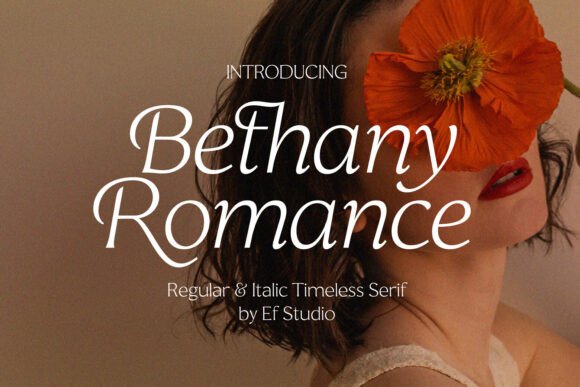
Bethany Romance Font: Elevate Your Design with Elegance and Sophistication
In the world of typography, few fonts manage to strike a balance between classic elegance and modern charm. Bethany Romance, a refined semi-serif font, is one such exceptional typeface that seamlessly blends traditional sophistication with contemporary allure. This beautifully crafted font is perfect for designers seeking to add a touch of luxury and refinement to their projects, whether it’s for branding, editorials, or elegant invitations.
Key Features of Bethany Romance Font
- Refined Semi-Serif Design: Bethany Romance boasts a semi-serif design that exudes classic sophistication. Its sleek lines and refined features make it an excellent choice for projects that demand elegance.
- High-Contrast Strokes: The regular style of Bethany Romance features high-contrast strokes, which add depth and dimension to the font. This characteristic makes it particularly suitable for editorial designs, luxury branding, and high-end publications.
- Italic Alternates with Swashes: The italic alternates of Bethany Romance introduce graceful swashes, elevating the font’s elegance to new heights. These swashes add a touch of luxury and fluidity, making the font perfect for creating visually stunning designs.
- Versatility: Bethany Romance is incredibly versatile, making it suitable for a wide range of applications, from branding and editorials to elegant invitations and packaging designs.
Ideal Applications for Bethany Romance
Bethany Romance’s unique blend of classic and modern elements makes it an excellent choice for various design projects. Here are some ideal applications for this beautiful font:
- Branding: Use Bethany Romance to create luxurious brand identities that convey sophistication and elegance. Its refined design ensures that your brand stands out with a touch of class.
- Editorials: The high-contrast strokes and elegant swashes of Bethany Romance make it perfect for editorial designs, such as magazines, newspapers, and online publications.
- Elegant Invitations: Add a touch of luxury to your invitations, whether it’s for weddings, galas, or other special events. Bethany Romance’s refined design and beautiful swashes will make your invitations truly unforgettable.
- Packaging Design: Elevate your packaging designs with Bethany Romance, creating a sophisticated and premium look that appeals to discerning customers.
Typography Tips for Using Bethany Romance
To make the most of Bethany Romance, consider the following typography tips:
- Pair with Complementary Fonts: Combine Bethany Romance with complementary fonts to create visual interest and hierarchy in your designs. Consider pairing it with sans-serif fonts for a modern contrast.
- Adjust Font Sizes: Experiment with different font sizes to create a clear visual hierarchy. Use larger sizes for headings and smaller sizes for body text to ensure readability.
- Utilize Swashes: Take advantage of the elegant swashes in the italic alternates to add a touch of luxury to your designs. Use them sparingly to avoid overwhelming the text.
- Play with Line Spacing: Adjust the line spacing to improve readability and create a clean, uncluttered look. Proper line spacing ensures that your text is easy to read and visually appealing.
Finding Inspiration with Bethany Romance
When working with Bethany Romance, draw inspiration from various design styles and trends. Here are some sources of inspiration to consider:
- Classic Typography: Look to classic typography for inspiration, exploring the works of renowned typographers and designers who have mastered the art of elegant typefaces.
- Luxury Brands: Examine the branding strategies of luxury brands, which often rely on sophisticated typography to convey exclusivity and high-end quality.
- Editorial Design: Browse editorial designs, such as fashion magazines and lifestyle publications, to see how elegant typography can elevate the overall aesthetic.
- Nature and Architecture: Find inspiration in the clean lines and organic shapes of nature and architecture. These elements can influence your typography choices and help you create harmonious designs.
Bethany Romance is a versatile and elegant font that brings a touch of sophistication to any design project. Its refined semi-serif design, high-contrast strokes, and beautiful swashes make it perfect for branding, editorials, elegant invitations, and more. By understanding its key features, ideal applications, and typography tips, you can unlock the full potential of Bethany Romance and create stunning designs that leave a lasting impression.